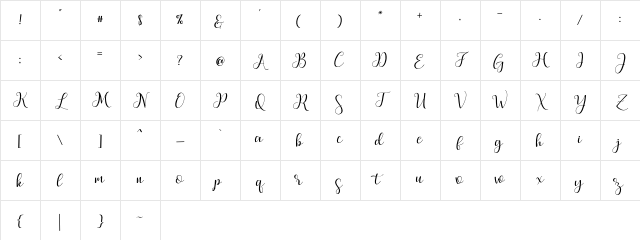
Marchy Script flows with the natural rhythm of handwritten lettering, making it ideal for designs that call for warmth and personal expression.
Font Pairing: Combine Marchy Script with a simple geometric sans for maximum contrast - the tension between flowing curves and clean structure is a classic typographic pairing.
Pro Tip: Use Marchy Script for short runs of text - names, titles, or taglines. Extended body copy in script faces tires the eye quickly.